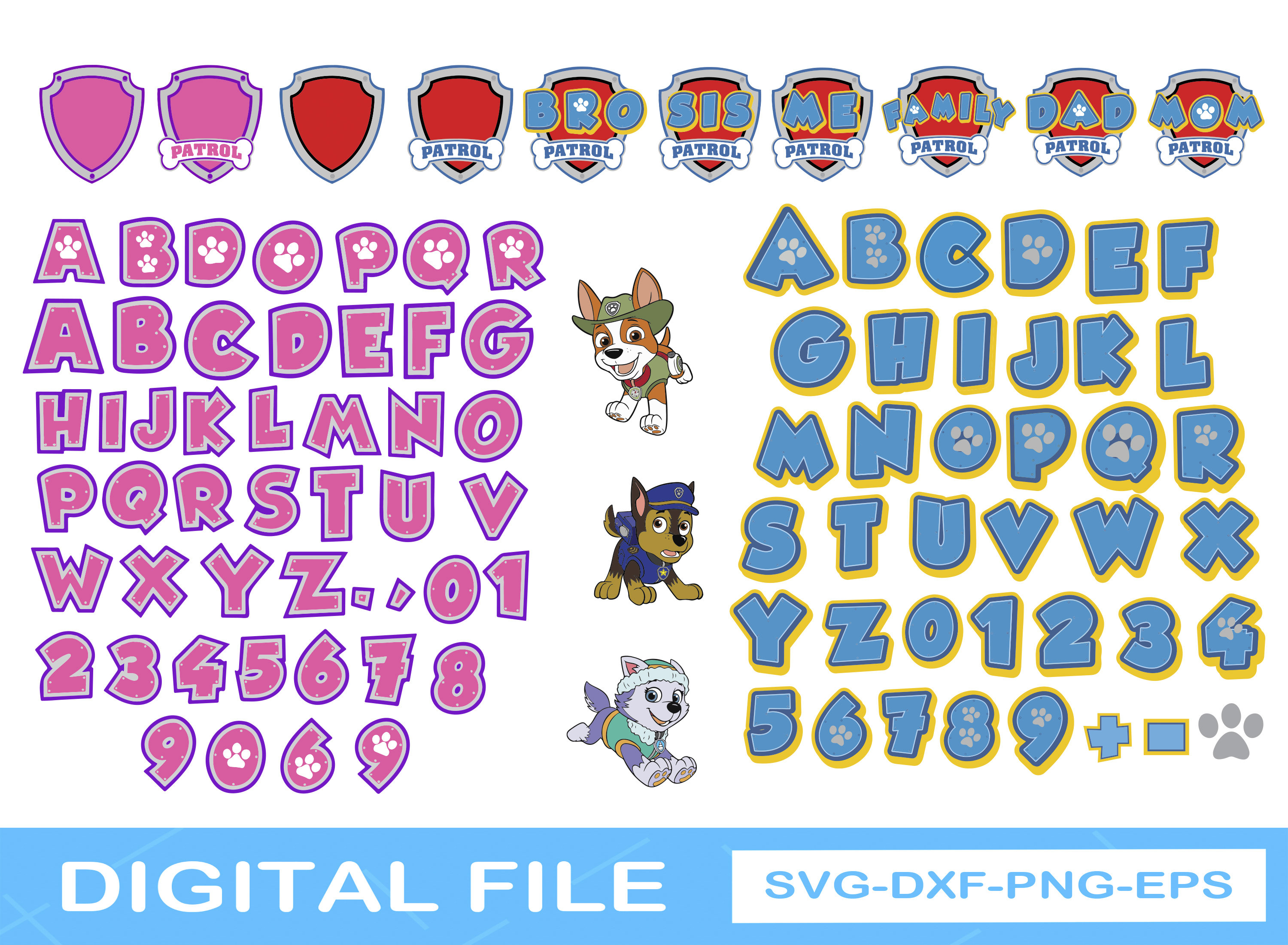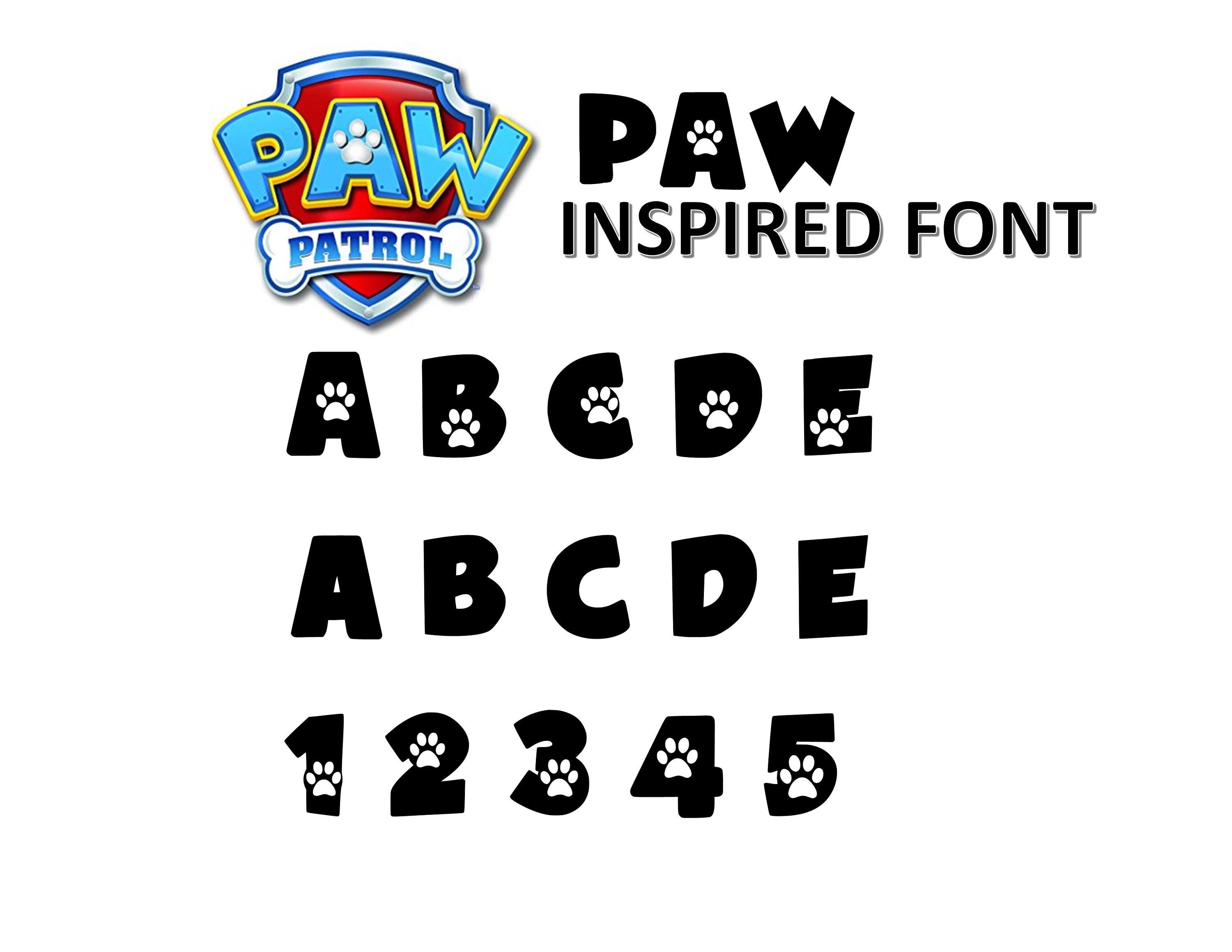
Fonts Paw Patrol
Fonts Paw Patrol - Web learn how to create text graphics similar to the style of paw patrol logo using a comic style font and a slab serif font. Web the paw patrol font family is based on an animated television show that was created by keith chapman. Paw patrol suggested by schlacter. Web this free font family can have multiple kinds of style, numerals as well as lining and text figures.